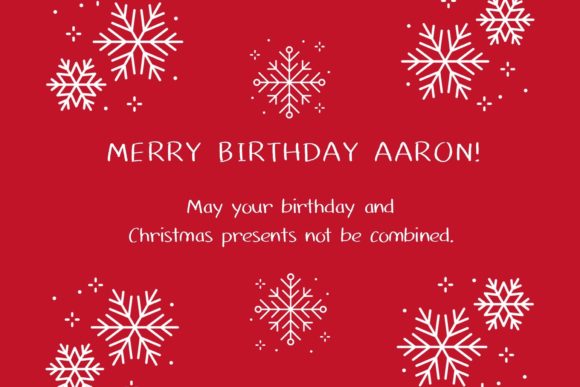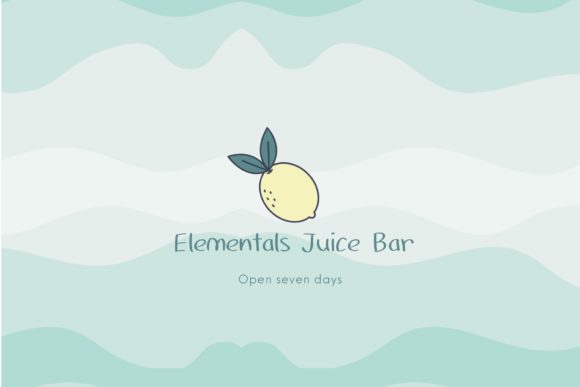
Mariana Font
About Mariana Font
Mariana is a cute minimalist handwritten font perfect for crafting, Cricut and Procreate projects, Instagram posts, wedding invitations, logos, branding, decor, mugs, pantry labels, stickers, business cards, greeting cards, posters, and many other designs. Add it to your creative ideas, and watch how it makes them stand out!